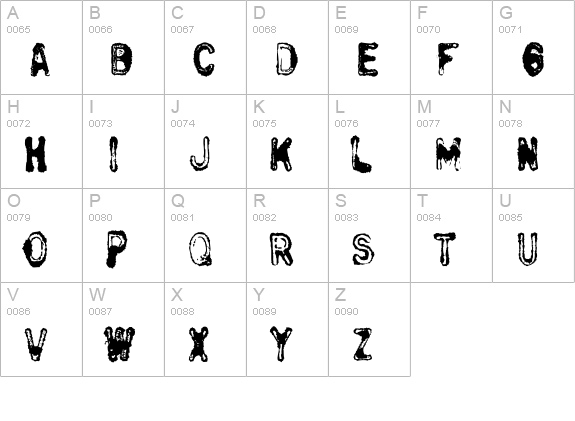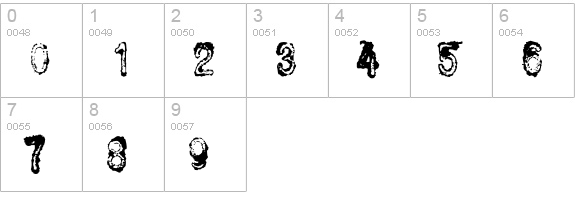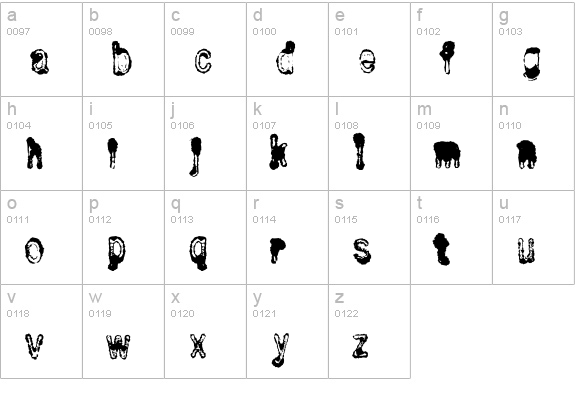
Introducing Bull-SemiInked font - a bold and stylish typeface that exudes confidence and sophistication. With its unique semi-inked design, this font is sure to make a statement in any project. The thick strokes and slightly rough edges give Bull-SemiInked a modern and edgy vibe, perfect for branding, packaging, headlines, and more. What sets Bull-SemiInked font apart is not just its striking appearance, but also its versatility. Whether you're designing a poster, logo, apparel, or website, this font will add a touch of boldness and personality to your creations. And the best part? Bull-SemiInked font is completely free to download at FontsMarket.com. Yes, you read that right - you can elevate your designs with this eye-catching font without spending a dime. Don't miss out on this opportunity to enhance your projects with Bull-SemiInked font today!